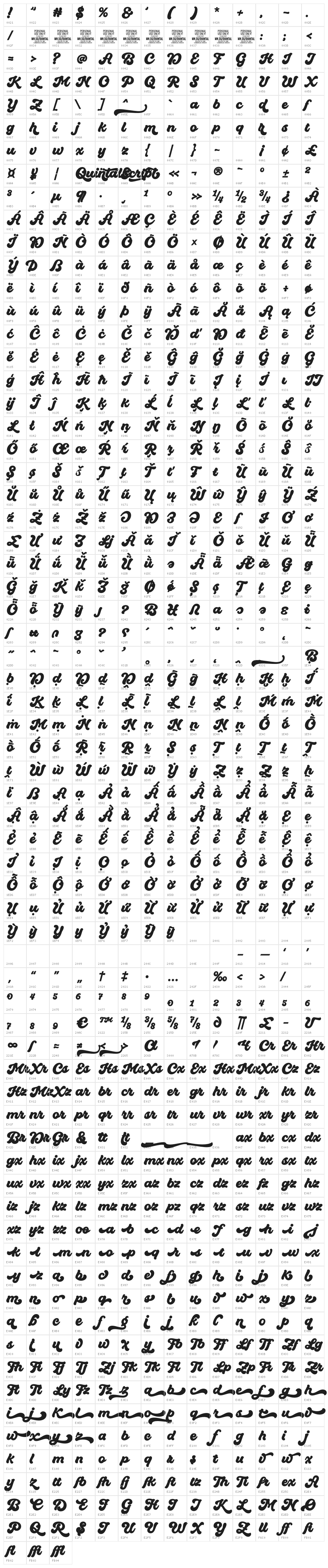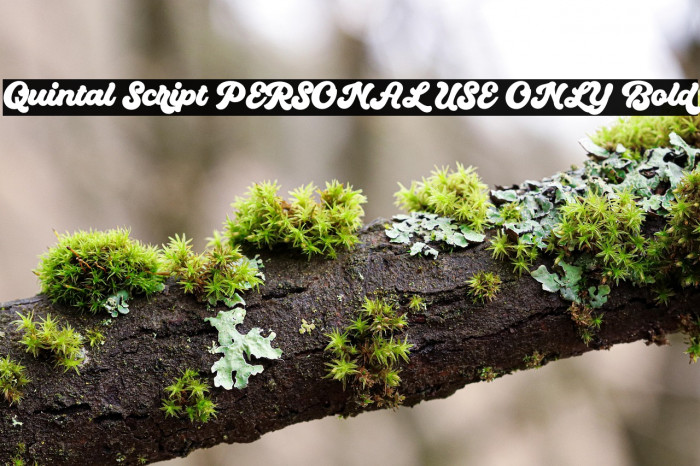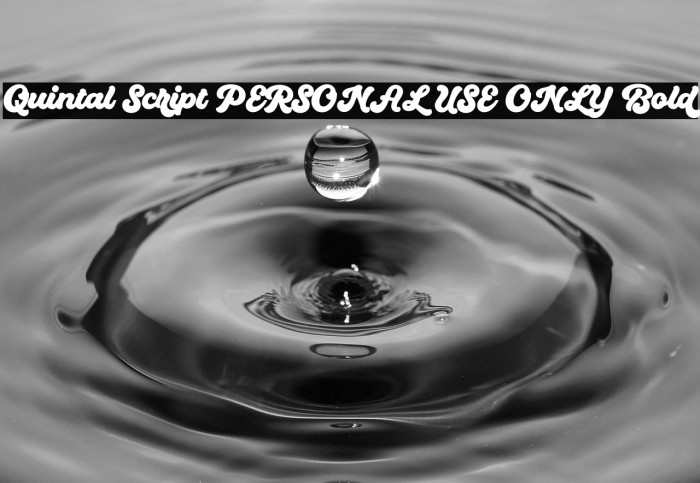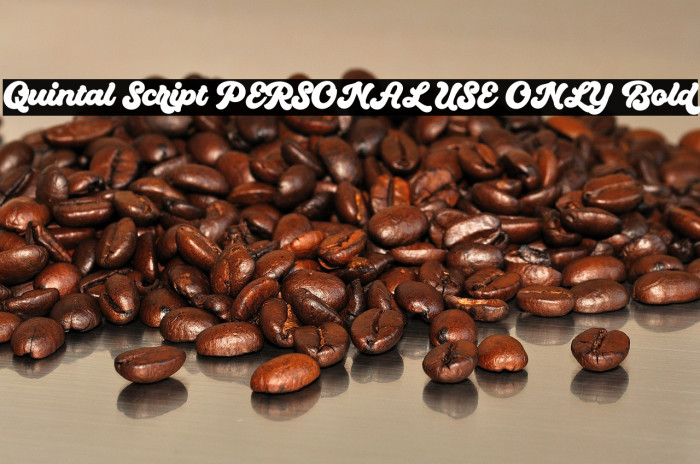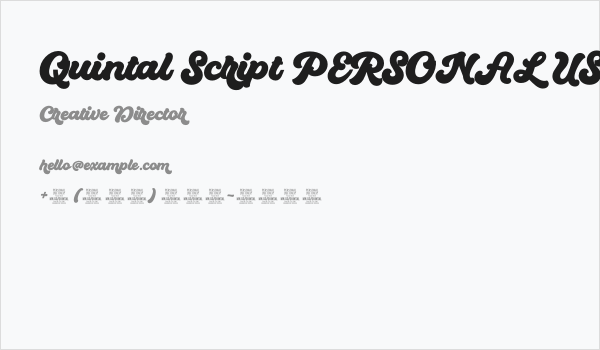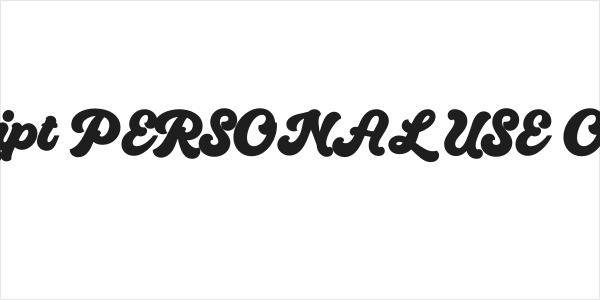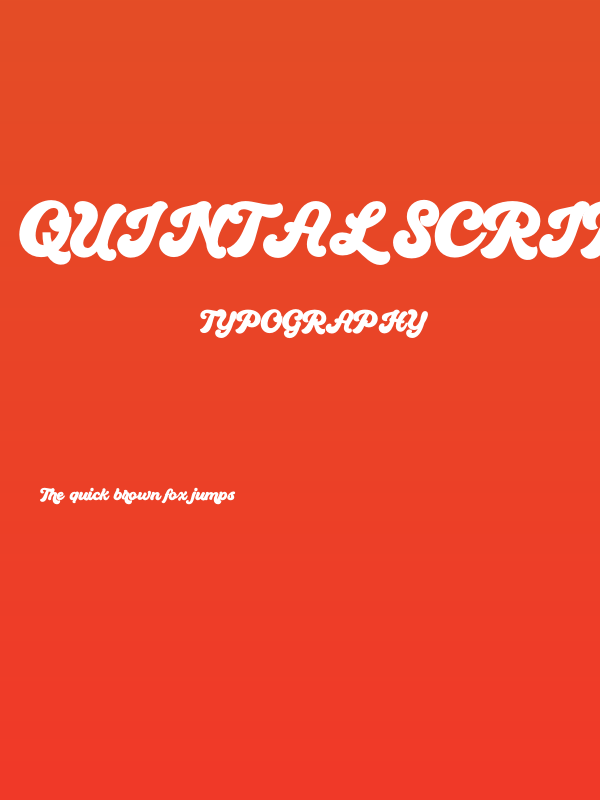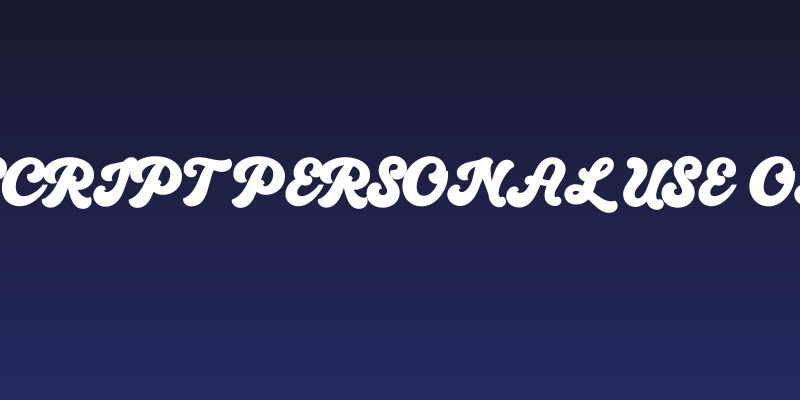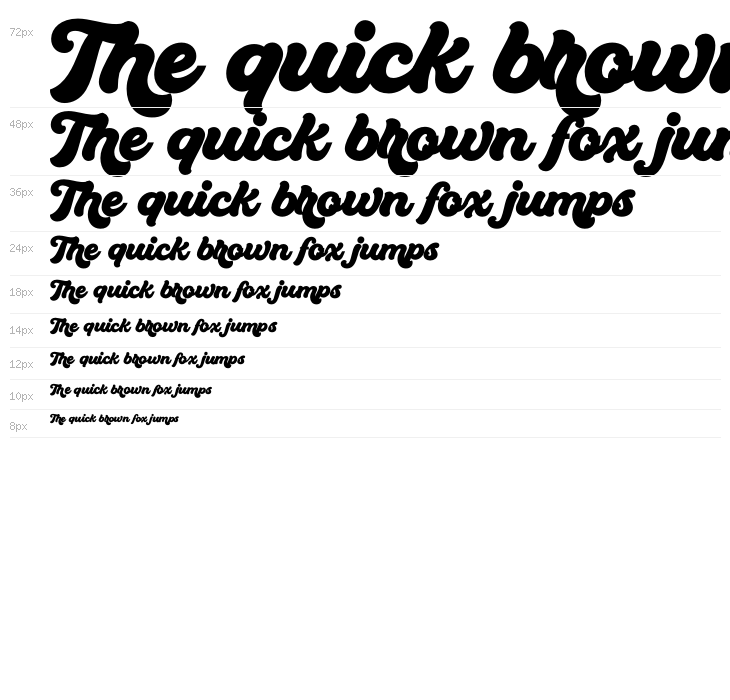
Quintal Script PERSONAL USE ONLY Bold Font
Quintal Script PERSONAL USE ONLY Bold Description
This font features a bold, flowing script style with a playful and dynamic appearance. The characters are interconnected, creating a sense of continuity and movement. The strokes are thick and rounded, giving the font a friendly and approachable feel. The uppercase letters maintain a consistent height, while the lowercase letters exhibit a slight slant, enhancing the cursive effect. The numbers and special characters are designed to match the overall style, ensuring a cohesive look across all elements. This font is ideal for projects that require a touch of elegance and personality.